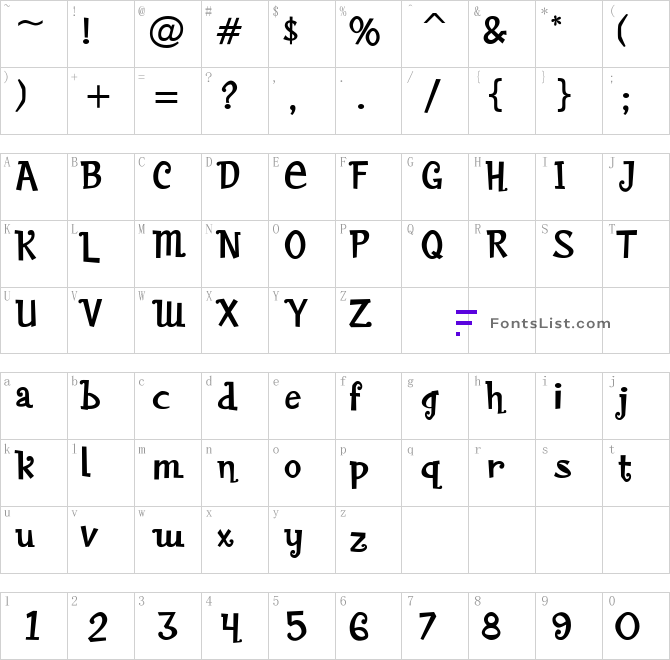
- Font Name:BaileywickFestiveJF
BaileywickFestiveJF.ttf is a very beautiful artistic font, BaileywickFestiveJF.ttf is widely used in the design and printing of various books and pictures,BaileywickFestiveJF.ttf has a strong visual impact,BaileywickFestiveJF.ttf is a commonly used font in newspapers, magazines and books, and is used in posters, e-commerce Poster design, store design, logo design, font design and other fields.BaileywickFestiveJF.